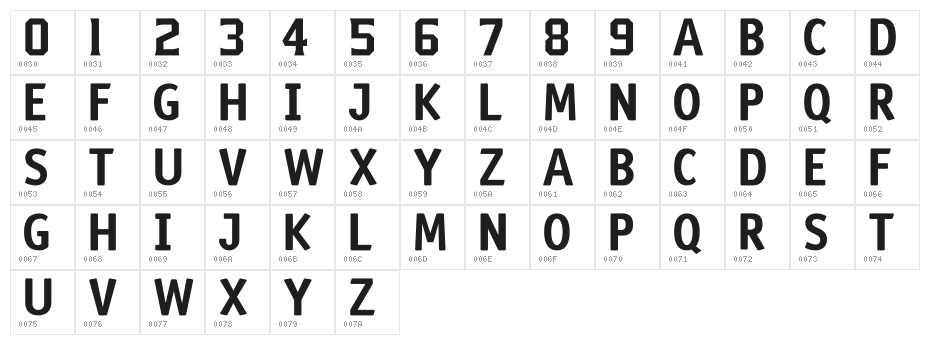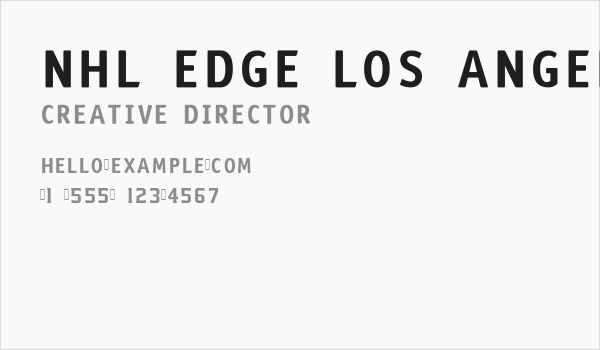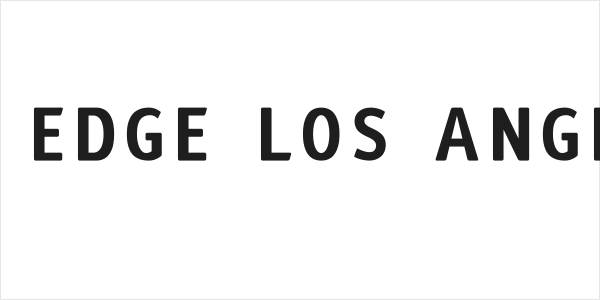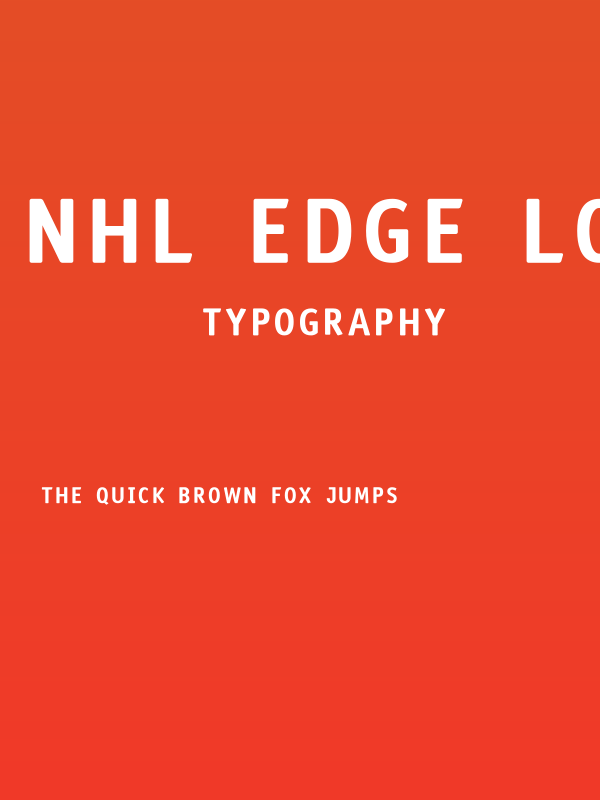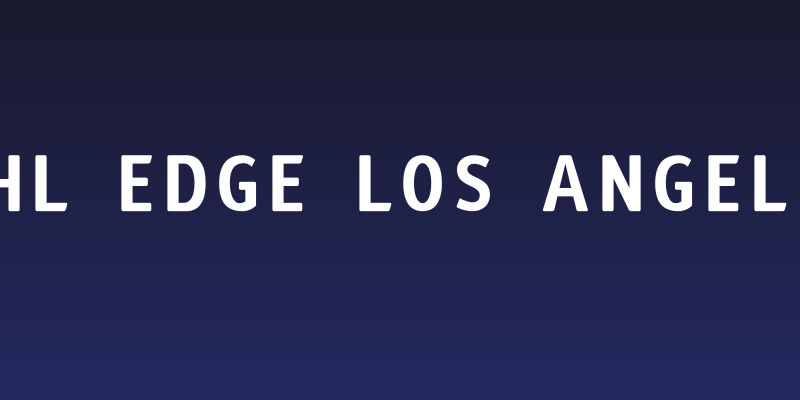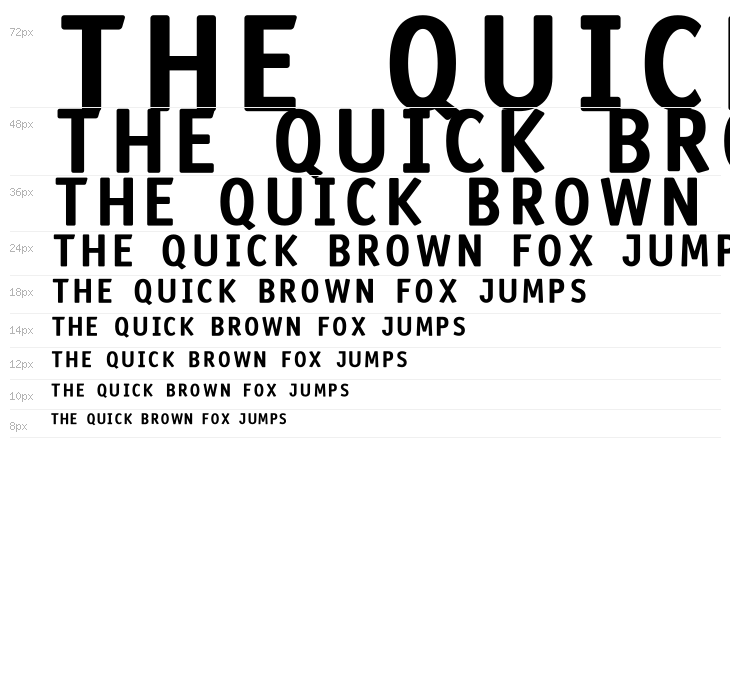
NHL Edge Los Angeles Font
NHL Edge Los Angeles Description
This font features a bold and modern design with strong geometric shapes and clean lines. The uppercase letters are uniform in height and width, creating a cohesive and structured appearance. The numbers are distinct and bold, with a slightly condensed style that enhances readability. The special characters maintain the same boldness and geometric precision, ensuring consistency across all elements. This font is ideal for projects that require a strong visual impact and a contemporary aesthetic.
| Use Case | Logos, Headlines, Branding |
| Proposed Projects | Ideal for sports branding, team logos, merchandise, and promotional materials. |